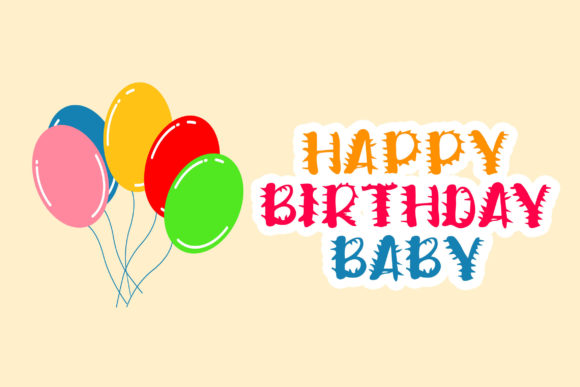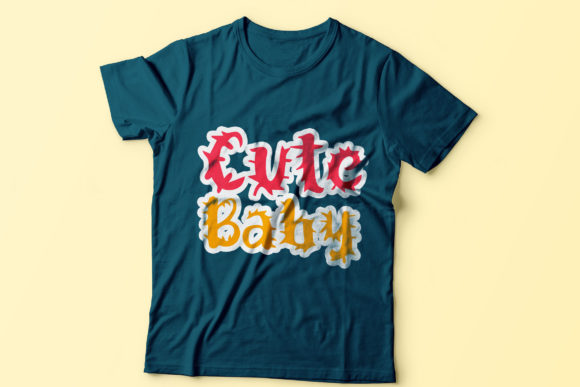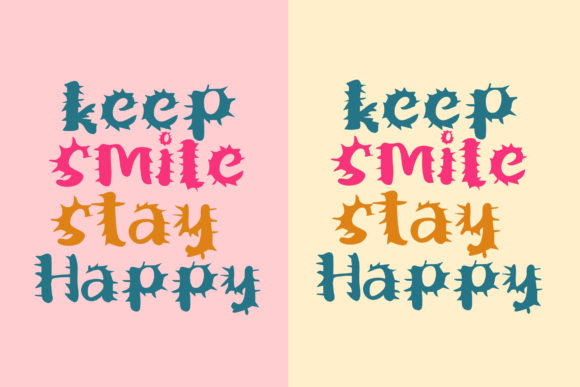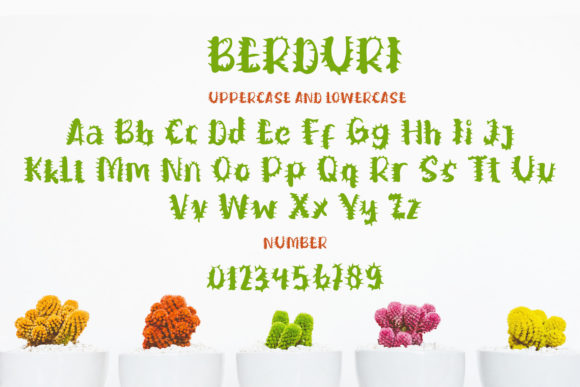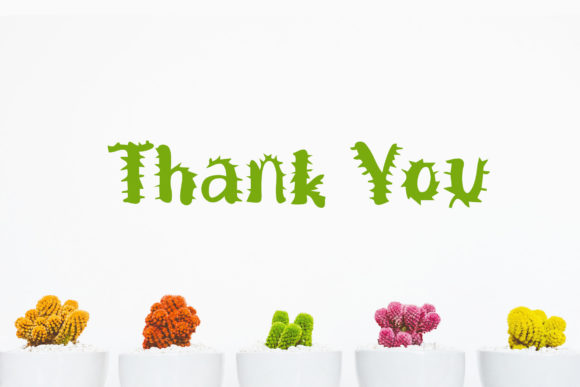
Berduri Font: Add a Touch of Whimsy to Your Designs
Are you tired of using the same old fonts in your designs? Look no further than Berduri Font, a unique and adorable decorative font that’s sure to add a touch of whimsy to your projects. With its distinctive thorn-like protrusions on each letter, Berduri Font is perfect for crafty designers and crafters looking to add some personality to their work.
What is Berduri Font?
Berduri Font is a one-of-a-kind decorative font that features letters with thorns stuck in each one. This original look is sure to appeal to a wide range of crafty ideas, from letterheads and titles to stationery and more. Whether you’re a designer, crafter, or DIY enthusiast, Berduri Font is the perfect addition to your font collection.
Unique Features of Berduri Font
So what sets Berduri Font apart from other fonts? Here are just a few of its unique features:
- Thorn-like protrusions: Each letter in Berduri Font features thorn-like protrusions, giving it a distinctive and eye-catching look.
- Cute and playful: Berduri Font is a cute and playful font that’s perfect for designs that require a touch of whimsy.
- Versatile: Berduri Font can be used for a wide range of projects, from letterheads and titles to stationery and more.
Uses for Berduri Font
Berduri Font is a versatile font that can be used for a wide range of projects. Here are just a few ideas to get you started:
- Letterheads and titles: Use Berduri Font to add a touch of personality to your letterheads and titles.
- Stationery: Berduri Font is perfect for creating custom stationery, including greeting cards, invitations, and more.
- Crafting projects: Berduri Font can be used for a wide range of crafting projects, including scrapbooking, journaling, and more.
- Signs and displays: Use Berduri Font to create eye-catching signs and displays for your business or personal projects.
Tips for Using Berduri Font
Here are a few tips for using Berduri Font in your designs:
- Use it sparingly: Berduri Font is a bold and eye-catching font, so use it sparingly to avoid overwhelming your design.
- Pair it with a simple font: Pair Berduri Font with a simple font to create a striking contrast.
- Experiment with colors: Berduri Font looks great in a variety of colors, so don’t be afraid to experiment and find the perfect hue for your design.
Berduri Font is a unique and adorable decorative font that’s perfect for crafty designers and crafters looking to add some personality to their work. With its distinctive thorn-like protrusions on each letter, Berduri Font is sure to add a touch of whimsy to your designs. Whether you’re creating letterheads, titles, stationery, or more, Berduri Font is the perfect addition to your font collection.
- What is Berduri Font?
- Berduri Font is a unique and cute decorative font with letters that have thorns stuck in each letter.
- What is Berduri Font used for?
- Berduri Font can be used for a wide range of projects, including letterheads, titles, stationery, and more.